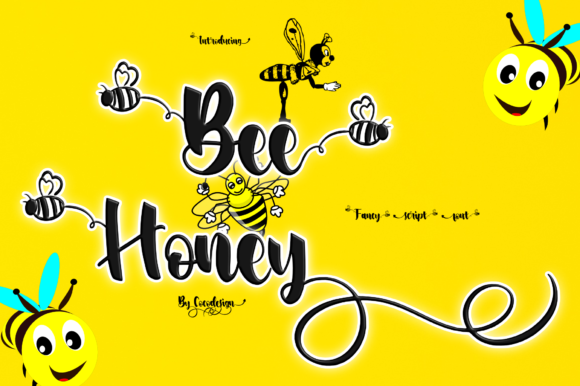
In the vast expanse of digital typography, where fonts hold the power to shape perceptions and convey messages, lies BeeHoney font, a creation of CocoDesign, that captivates your audience with its unique character. Inspired by the gentle hum of busy honeybees and the delicate sweetness of their golden yield, BeeHoney exudes an aura of refinement and elegance that leaves an unforgettable impression.
With its graceful curves and playful variations, BeeHoney is not just a font; it is an aesthetic masterpiece, designed to awaken the imagination and ignite creativity. It gracefully weaves its way into your designs, captivating and enchanting your audience with its delicate charm.
Craft enchanting headlines that dance with personality, mesmerizing logos that command attention, or create alluring social media posts that drip with sophistication. Let BeeHoney guide your hand as you transform ordinary words into works of art, leaving your audience spellbound in the process.
As a handwritten font, BeeHoney evokes a touch of nostalgia, reminding us of the enduring power of pen and paper in a digital world. It evokes images of handwritten letters, the gentle pressure of a quill gliding across paper, and the artistry that goes into crafting each character.
This font is perfect for projects that demand a touch of elegance, a dash of playfulness, and a dollop of individuality. It is your ally in creating extraordinary designs that leave a lasting impression, and it is the perfect choice for those seeking to craft a narrative that transcends the ordinary.
With BeeHoney by your side, you have a font that can make your work stand apart, capturing hearts and igniting imaginations. It is the essence of creativity, the brushstroke that transforms the mundane into the extraordinary, one character at a time.